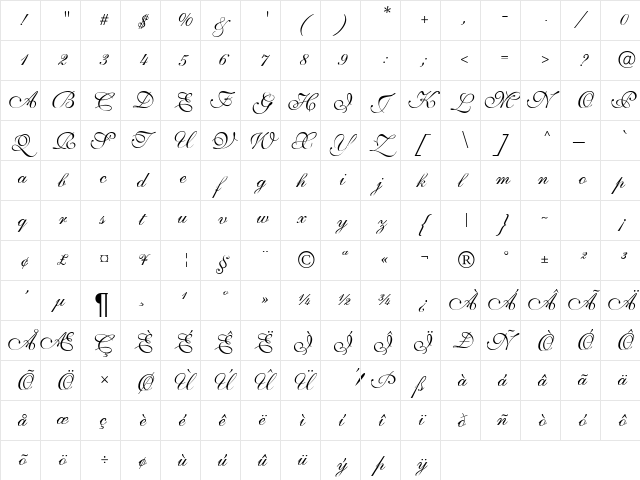
SarahVolanteDB Normal
Design Context for SarahVolanteDB Typeface
SarahVolanteDB is a composed and adaptable typeface that performs quietly and consistently across a wide range of design contexts.
Pro Tip: Use SarahVolanteDB in both headline and body roles to test its range before committing to a single application.